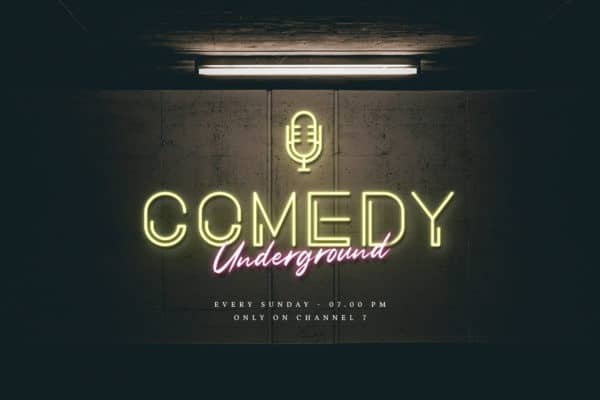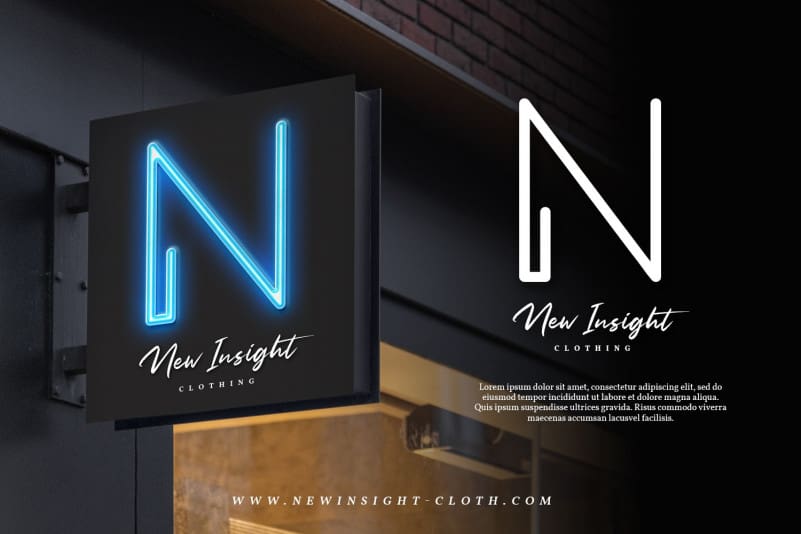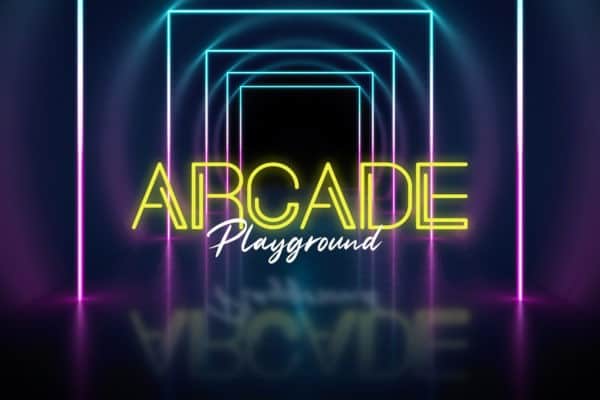
Neon Planet Display Font
Create your own neon signs with these Neon Planet Display Font! These brushes are a nice way to create neon artwork on your iPad. It’s designed and shared by Din Studio. This Font is a Modern and futuristic font duo. Combined with neon shape design and brush textured handwritten will make your design project more powerful. the font is suitable for any project that needs Retro, Modern, and Casual Vibes. Enjoy the Font!